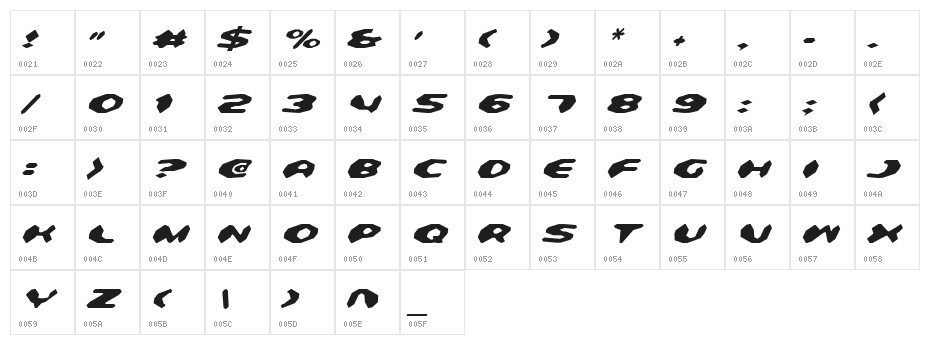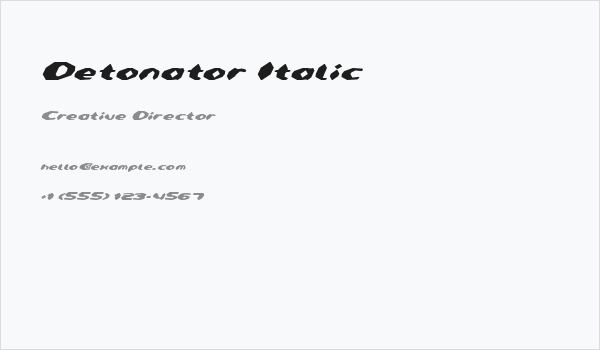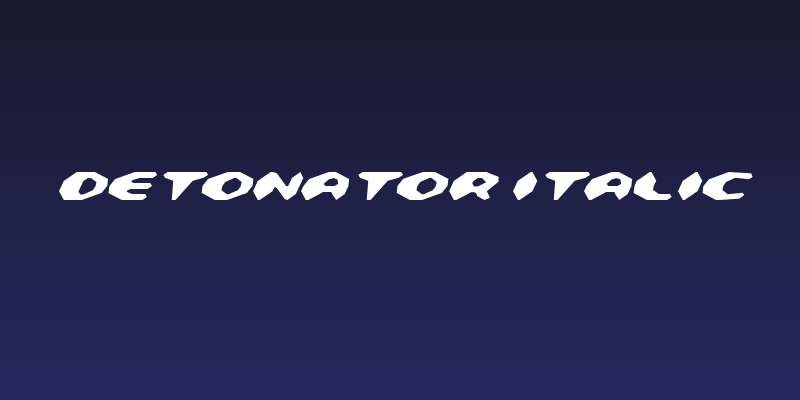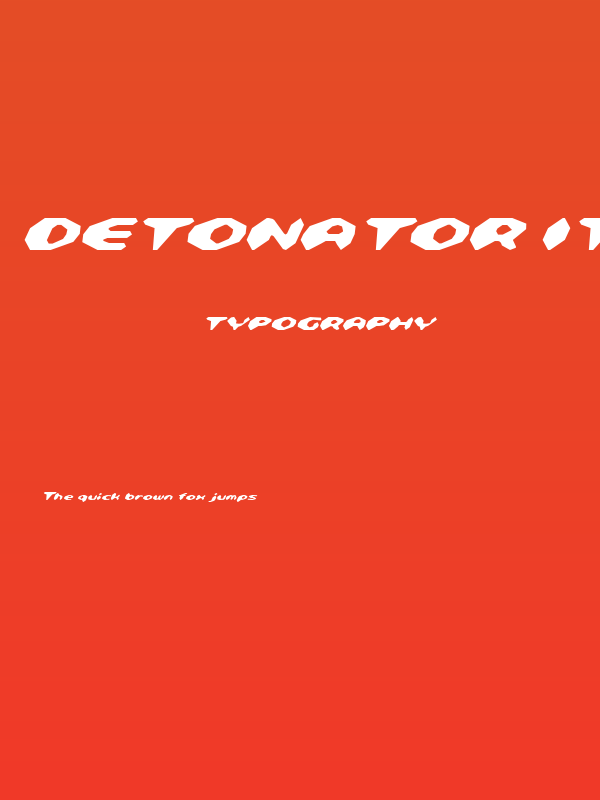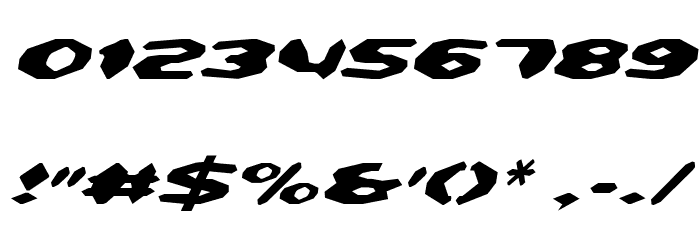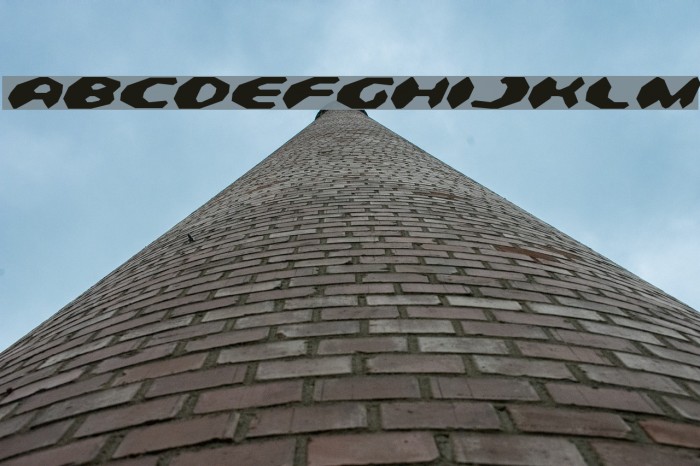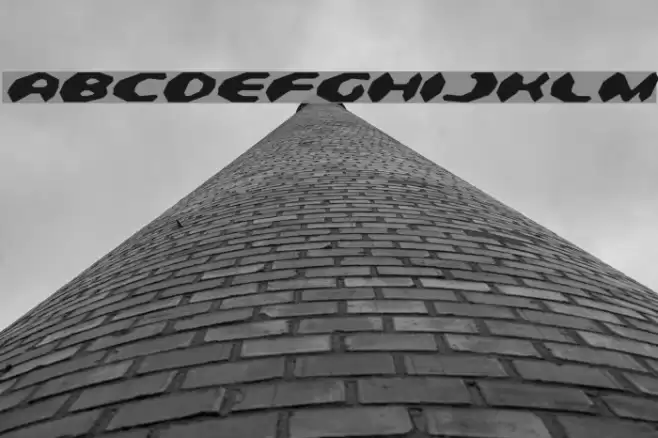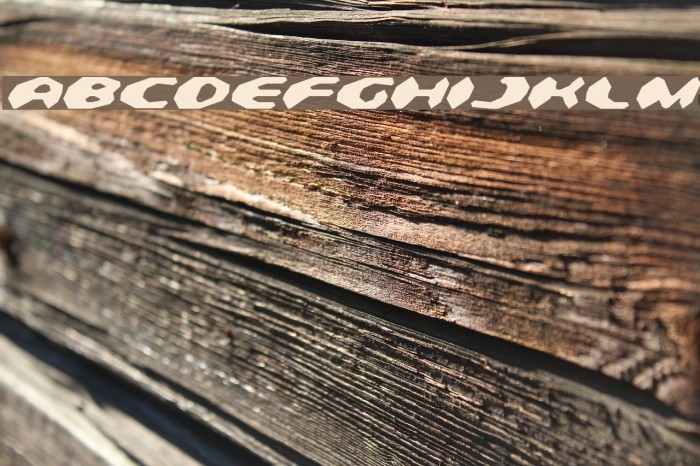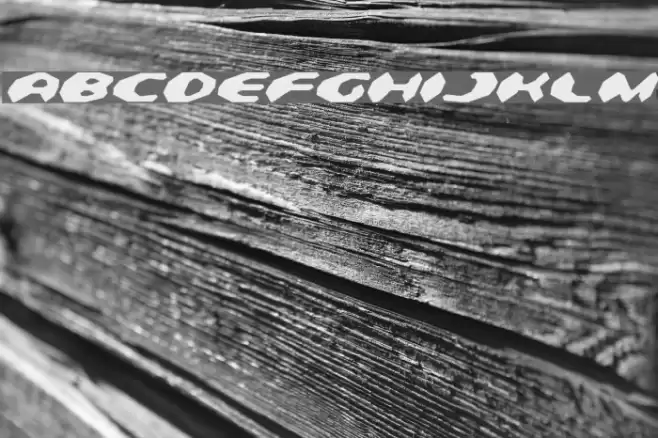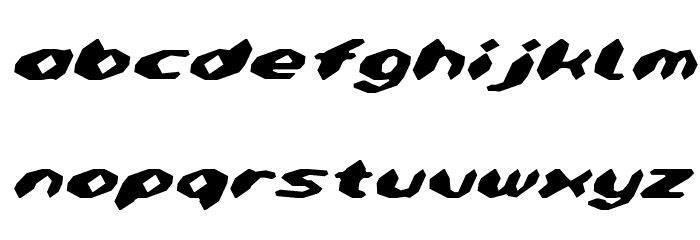
Detonator Italic Font
Detonator Italic Description
This font features a bold and dynamic style with a distinct italic slant, giving it a sense of movement and energy. The characters are robust and angular, with sharp edges and a slightly condensed form that adds to its impactful appearance. The uppercase and lowercase letters maintain a consistent style, while the numbers and special characters integrate seamlessly, ensuring versatility across various uses. The font's unique design makes it suitable for projects that require a strong visual presence.
| Proposed Projects | Ideal for branding, posters, video game graphics, and sports-related designs. |